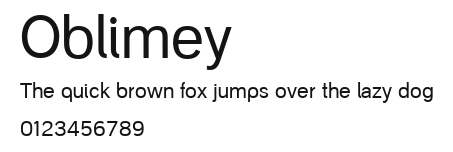
Oblimey Preview
• Font Name: Oblimey
• Full Font Name: Oblimey
About Oblimey.ttf
Oblimey.ttf is a modern, elegant sans-serif font designed for ultimate readability and visual harmony. Perfect for branding, headlines, web design, and print materials.